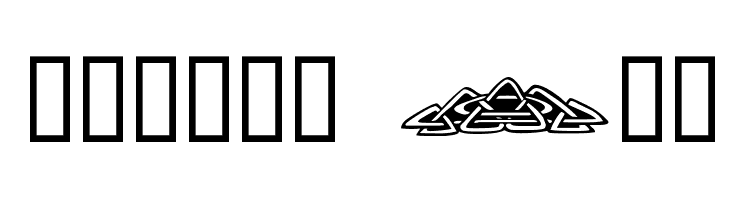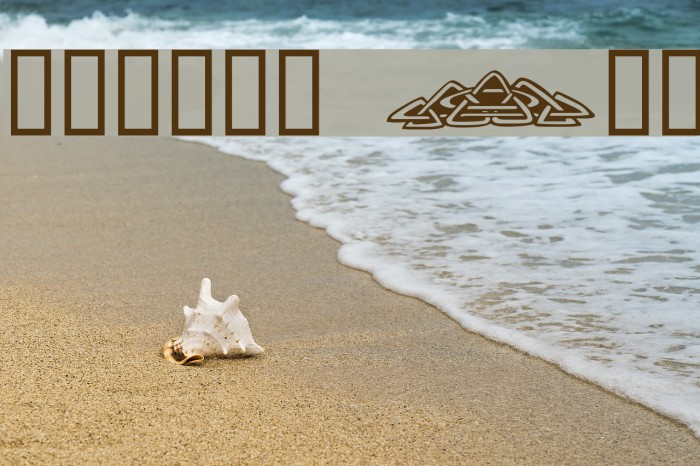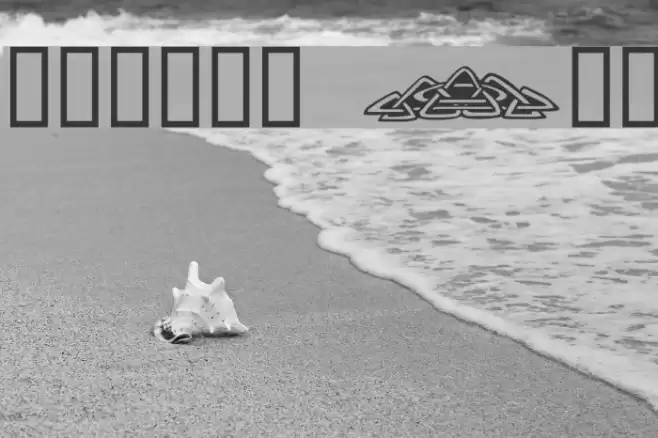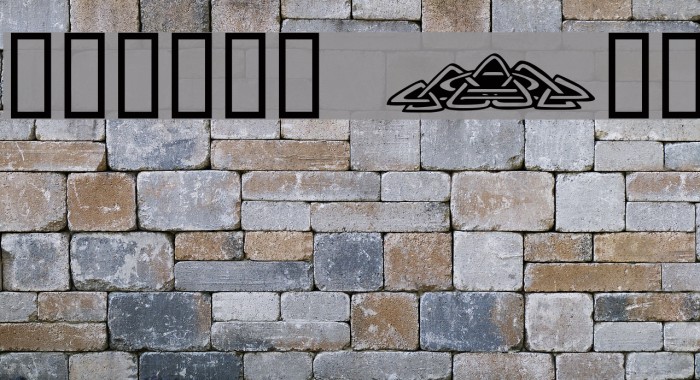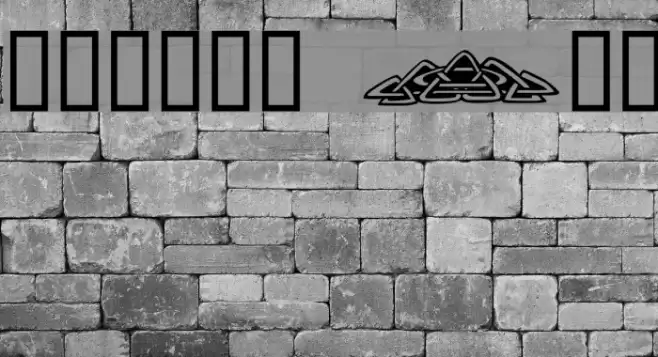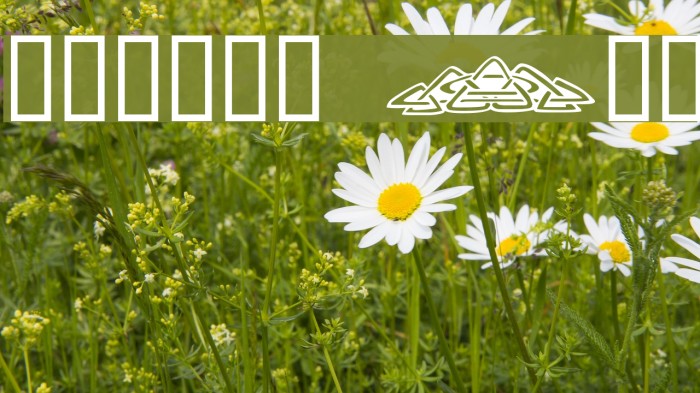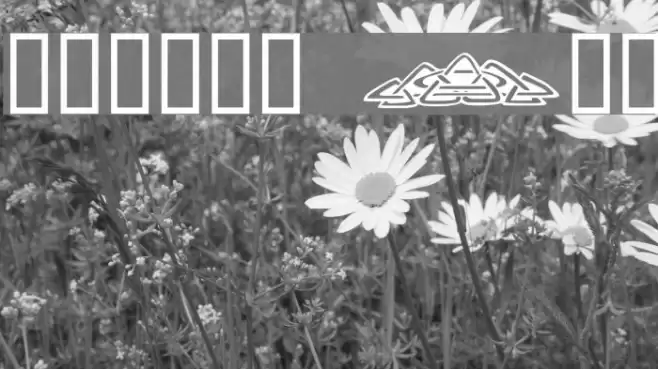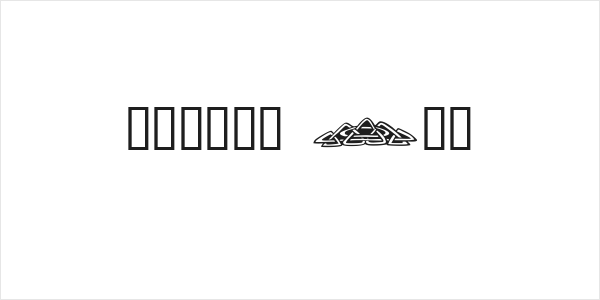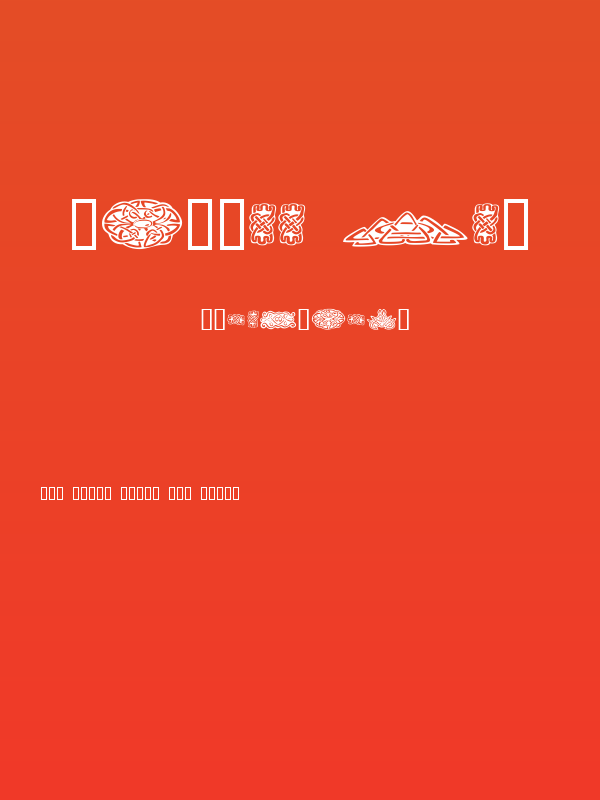
Tattoo No1 Font
Tattoo No1 Description
This design features intricate, decorative elements with a strong emphasis on Celtic and tribal motifs. The patterns are highly detailed, showcasing intertwining lines and shapes that create a sense of complexity and depth. The style is bold and striking, making it ideal for ornamental purposes. The use of negative space enhances the visual impact, giving each element a distinct and memorable appearance. This design is perfect for projects that require a touch of elegance and tradition, while also conveying strength and unity.
| Use Case | Logos, Decorative art, Tattoos |
| Proposed Projects | Ideal for tattoo designs, decorative art, branding elements, and themed event materials. |